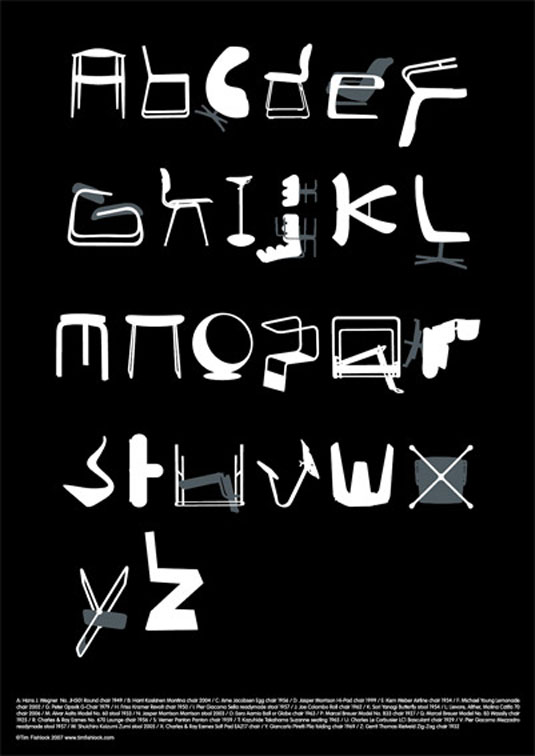
Furniture fonts recreate iconic chair designs
Are you sitting comfortably? Then check out this typographical treat from Tim Fishlock, based on classic 20th century chair designs...
What do you get when you combine your love of furniture design with your love of fonts? Chair-based typography of course! Fulfilling our love of product design with that of inspirational graphic design, typographer and designer Tim Fishlock has produced this brilliantly inventive print.
Known for his thinking-outside-the-box approach, Tim has already created works for the 150th anniversary of the London Underground; a series of interactive games and paper-folded typography. Once we came across this latest project, we knew we had to share it with all you font-lovers out there!
Entitled 'Typeseat', the typography is based on iconic chair designs of the 20th century. We can see some 60s delights as well as a few older favourites - basically, a lot of inspiration can be had here! If you're as much in love as we are, you can buy the limited edition print for $70 at twentytwentyone. Be quick - there's a run of just 300!